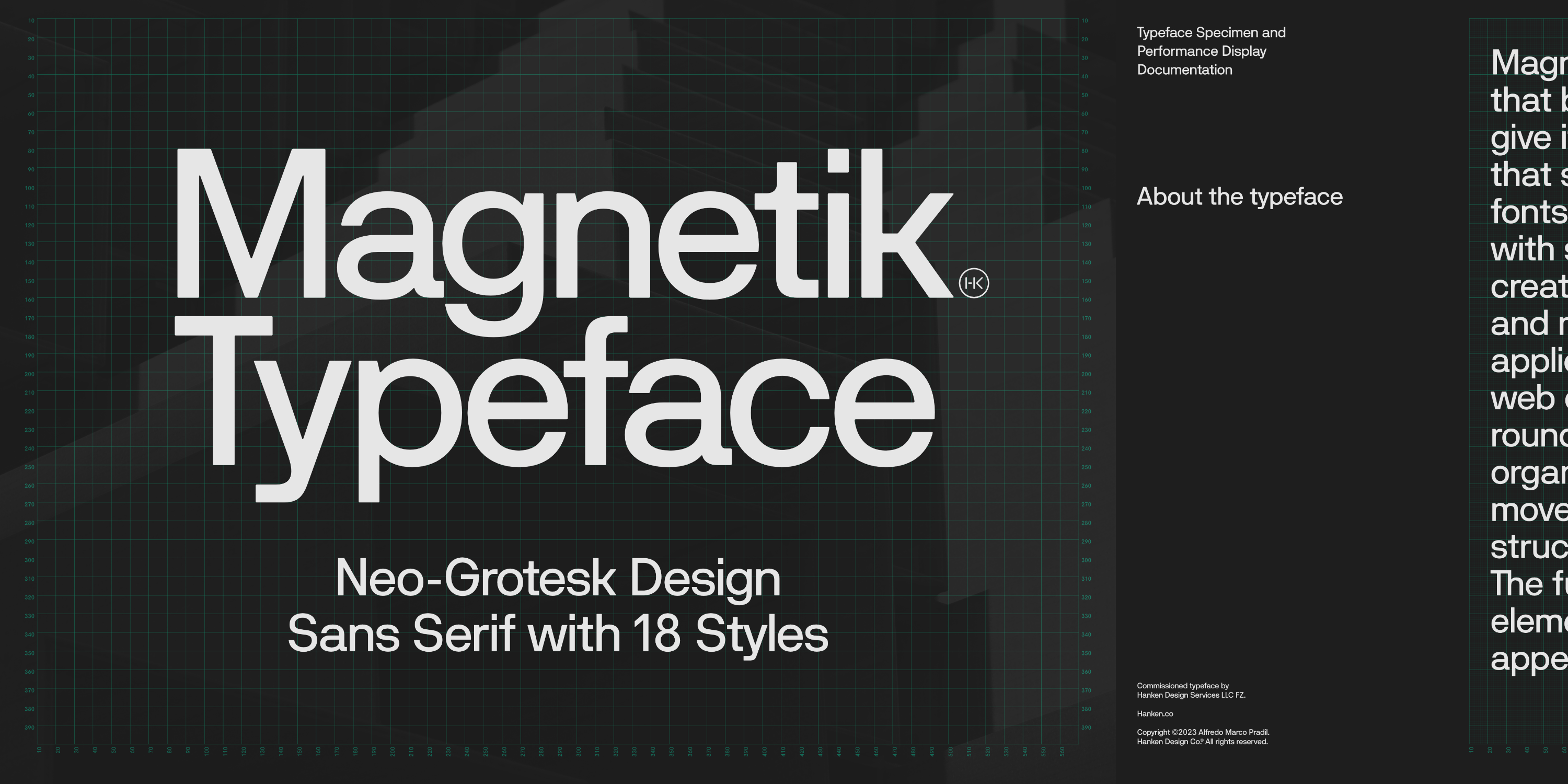
Magnetik Font excels in various design applications including tech company branding, magnetic therapy logos, scientific publication designs, industrial equipment signage, energy sector materials, physics-themed educational content, magnetic product packaging, and innovative technology advertisements. This attractive typeface adapts powerfully to both dynamic digital platforms and compelling print materials, making it perfect for designers seeking magnetic appeal and scientific sophistication in their visual communications.
Magnetik Font generates excitement among design professionals due to its magnetic character and attractive styling that instantly conveys force and irresistible appeal. The font's dynamic letterforms and magnetic proportions create an immediate sense of attraction and powerful energy. Its compelling personality makes it particularly appealing for brands wanting to communicate magnetic attraction, powerful force, and irresistible appeal in their visual identity.
The Magnetik Font family encompasses multiple weights and styles including Regular, Bold, Light, Electric, and Condensed variations. Each family member maintains magnetic design principles while offering distinct attractive characteristics. The Light weight provides subtle magnetic elegance for refined applications, while the Electric version delivers powerful impact for compelling headlines and magnetic brand statements.
Attractive designers frequently choose Magnetik Font Free Download for projects requiring both magnetic authenticity and compelling distinction. This typeface demonstrates exceptional effectiveness across technology industries including electronics companies, scientific organizations, energy brands, and innovative startups. Its magnetic character allows organizations to communicate attractive force while maintaining excellent readability and compelling visual appeal that draws audiences and creates irresistible brand magnetism.